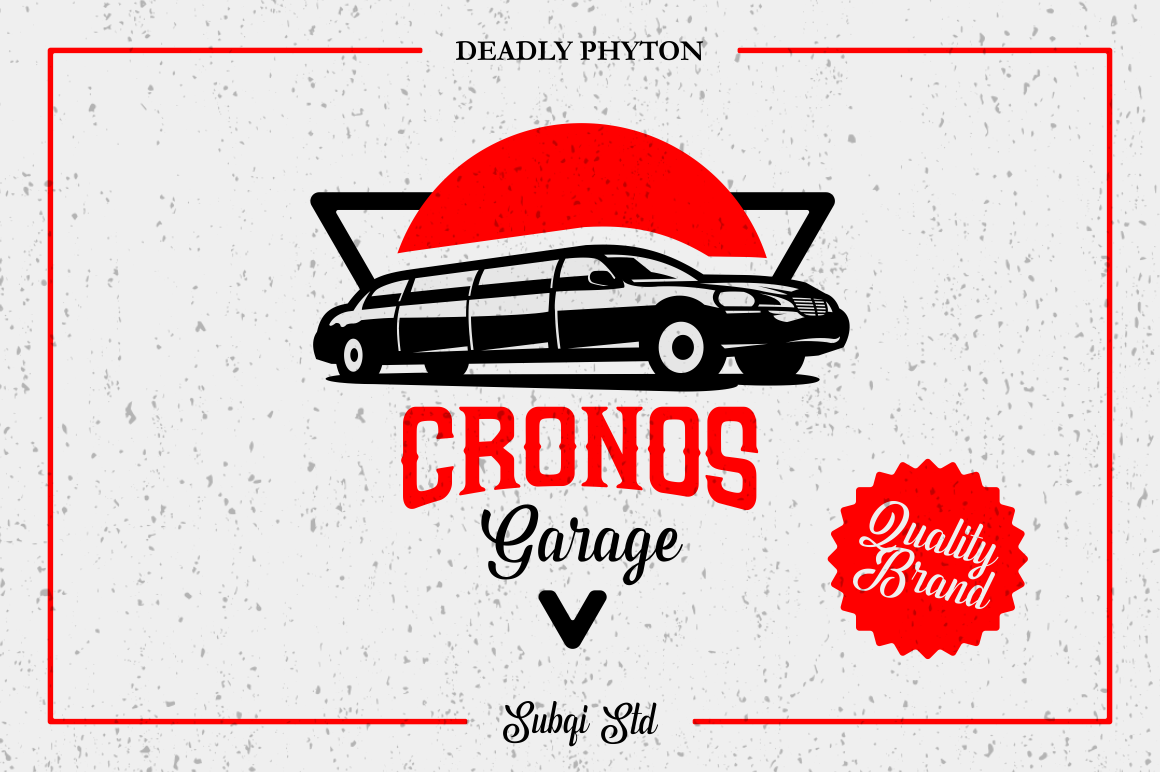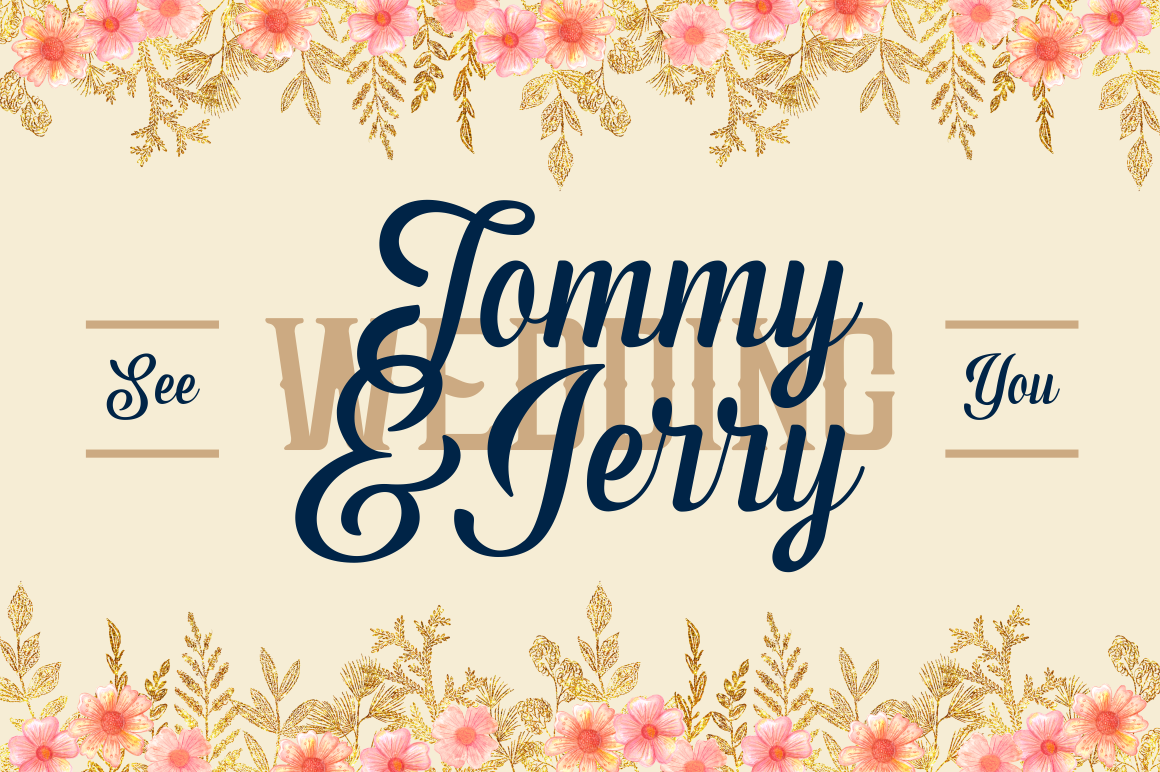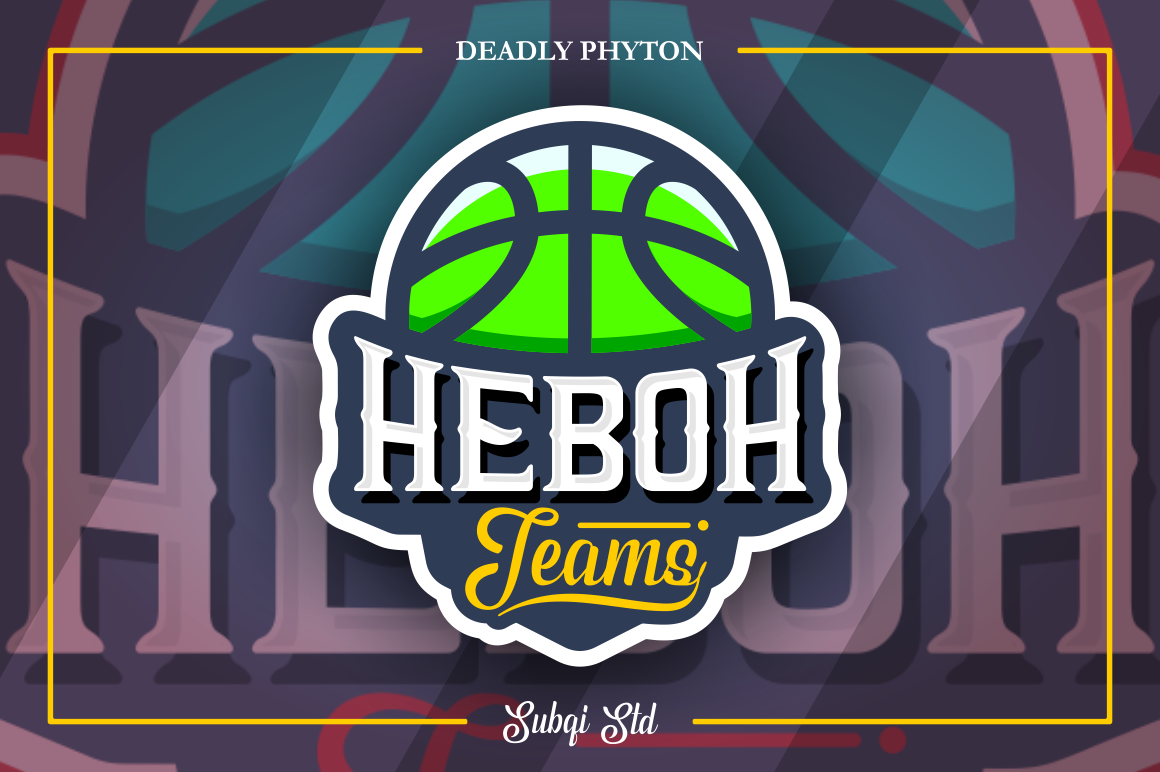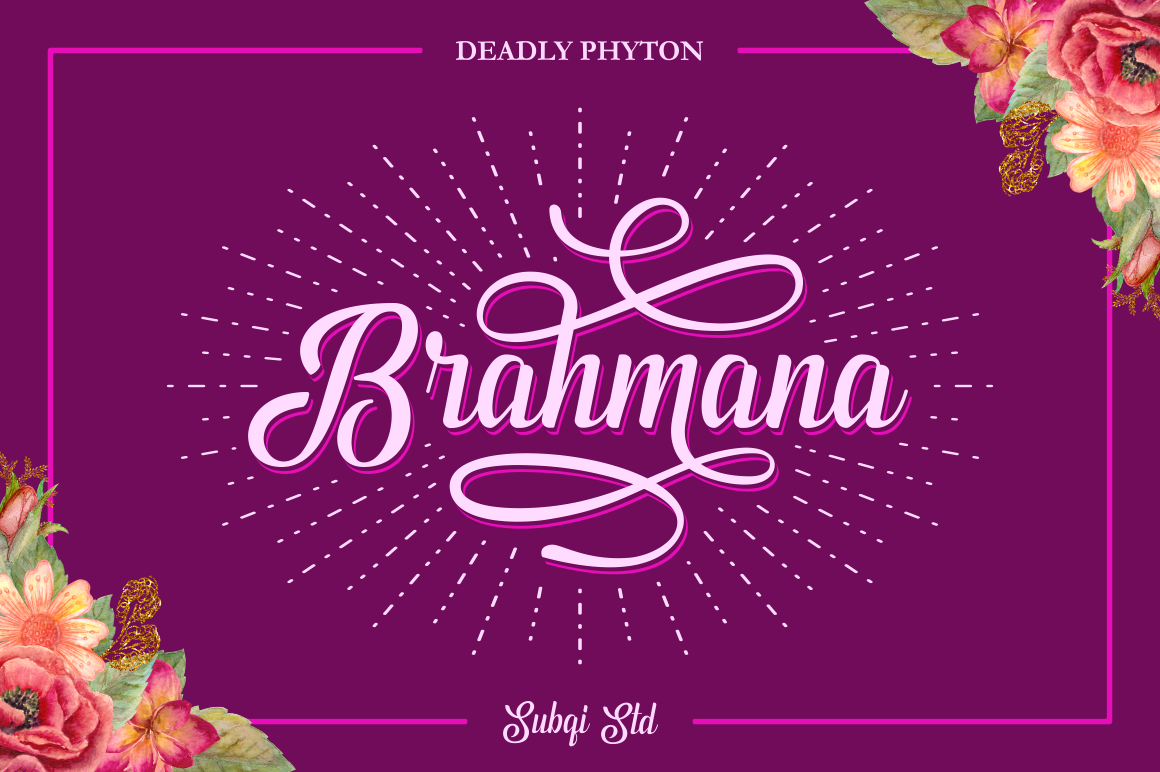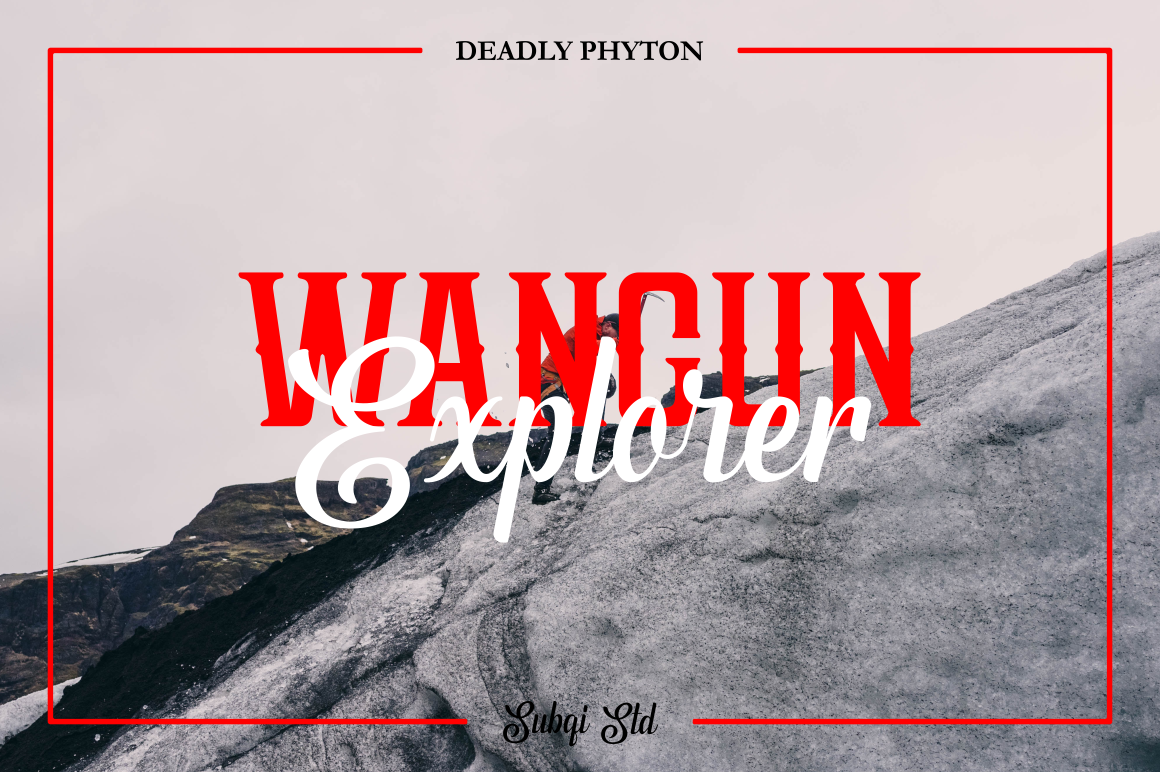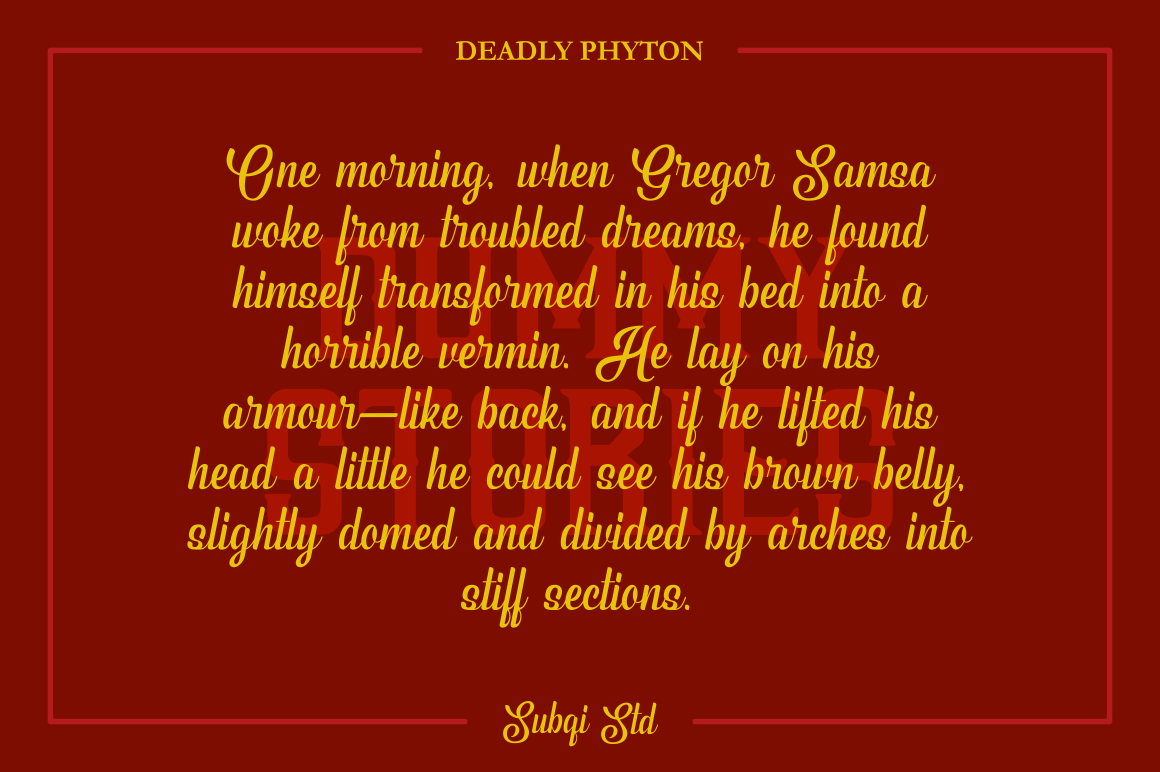
Introduction to Phyton Font
Have you ever been stuck on a creative project, searching for the perfect font to bring your design to life? I know I have. There’s nothing quite like the frustration of scrolling through font libraries, only to find that the perfect one eludes you. But what if I told you that there’s a font combo that’s sure to solve all your design woes? Say hello to the Phyton Font, a stunning script & serif duo that’s about to take your designs to the next level.
With its perfect balance of vintage and modern charm, the Phyton Font is a game-changer for designers. Whether you’re working on a high-quality branding project or need a free download for a creative endeavor, this font is sure to deliver. And the best part? It’s completely free, making it an invaluable design resource for anyone looking to elevate their work.
Key Features of Phyton Font
- High-quality, free font perfect for creative projects with a transparent background, allowing for seamless integration with various design elements.
- Includes a comprehensive set of characters, including uppercase and lowercase letters, numbers, and punctuation marks, making it ideal for a variety of design applications.
- Designed to be highly legible, even at small font sizes, ensuring that your text remains clear and readable in both digital and print formats.
- Perfect for use in creative projects, such as graphic design, web design, and digital art, where a high-quality, unique font can make a significant impact.
- Resolution-independent, ensuring that your font looks sharp and clear at any resolution, from low-resolution screens to high-resolution prints.
Honest Review: Phyton Font
As a designer, I’m always on the lookout for high-quality design resources that can elevate my creative projects. The Phyton Font is one such resource that caught my attention. In this review, I’ll share my honest thoughts on what works well and what could be improved.
- Unique and stylish design: The Phyton Font boasts a modern and elegant design that’s perfect for creative projects.
- High quality: The font is well-crafted and looks great on a transparent background, making it ideal for designs that require a touch of sophistication.
- Limited font weights: The Phyton Font only comes in a few font weights, which might limit its versatility in certain design projects.
- Lack of language support: The font only supports a few languages, which might be a concern for designers who need to create multilingual content.
Overall, I’m impressed with the Phyton Font’s unique design and high quality. While it has some limitations, I believe it’s a valuable resource for designers who need a stylish and elegant font for their creative projects. Whether you’re working on a free download or a paid design project, the Phyton Font is definitely worth considering.
Tips for Getting the Most Out of Phyton Font
To get the most out of Phyton Font, consider using it on a transparent background to create a modern and sleek design. You can also experiment with different font sizes and colors to create a unique look. The Phyton Font is a versatile design resource that can be used in a variety of creative projects.
The Phyton Font is commonly used in creative projects that require a high-quality, free download font. Some common use cases include:
- Graphic design projects
- Web design projects
- Print design projects
What makes the Phyton Font a high-quality design resource?
The Phyton Font is designed to be a high-quality design resource, with a focus on legibility, readability, and aesthetic appeal. Its clean and modern design makes it an ideal choice for a wide range of creative projects, from digital interfaces to print materials. The font’s high-quality design ensures that it will remain a valuable asset in your design library for years to come.